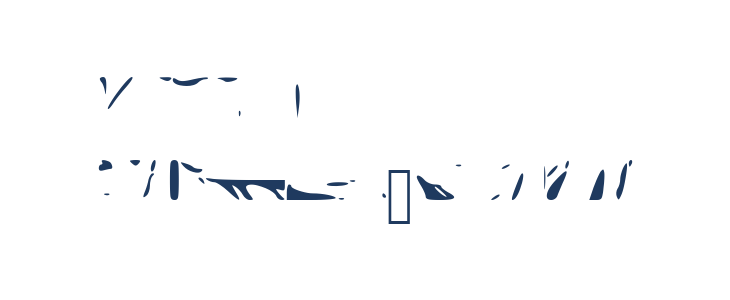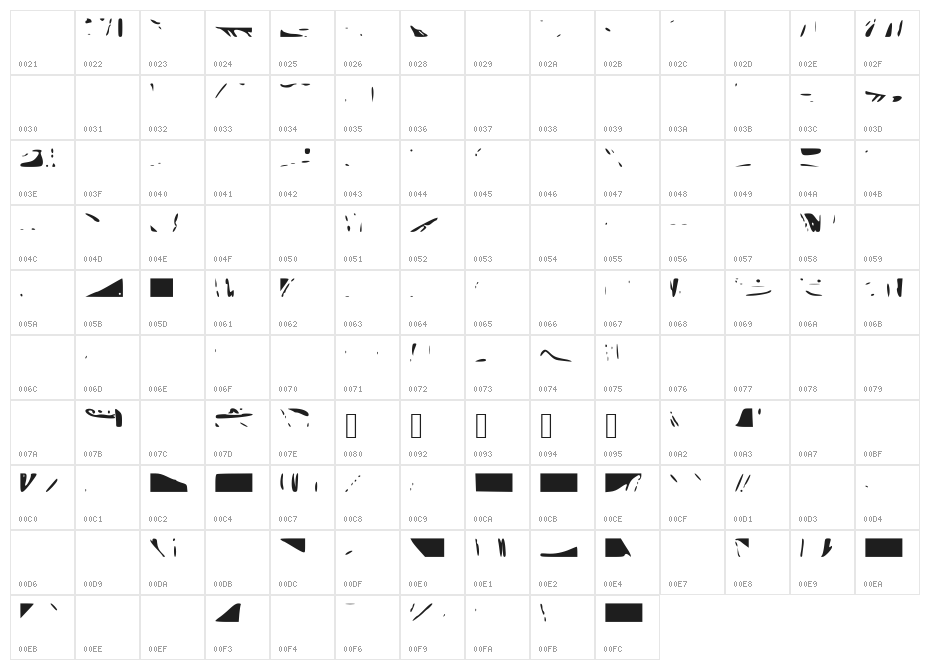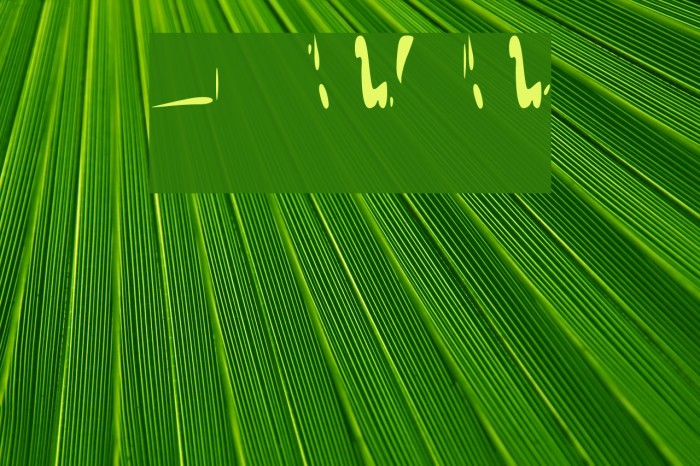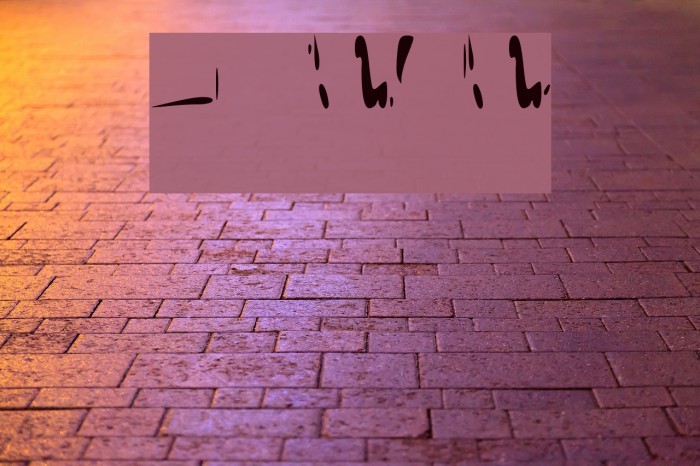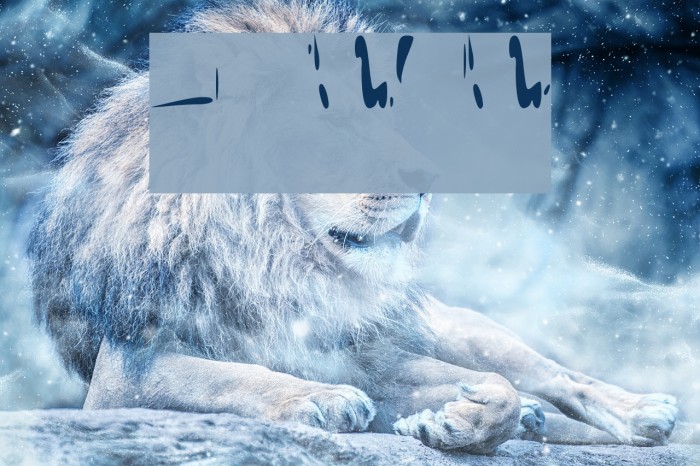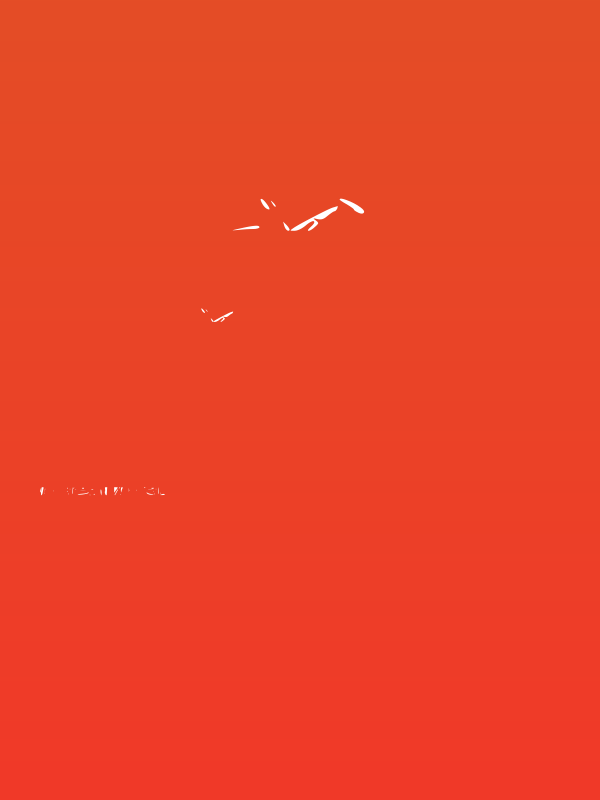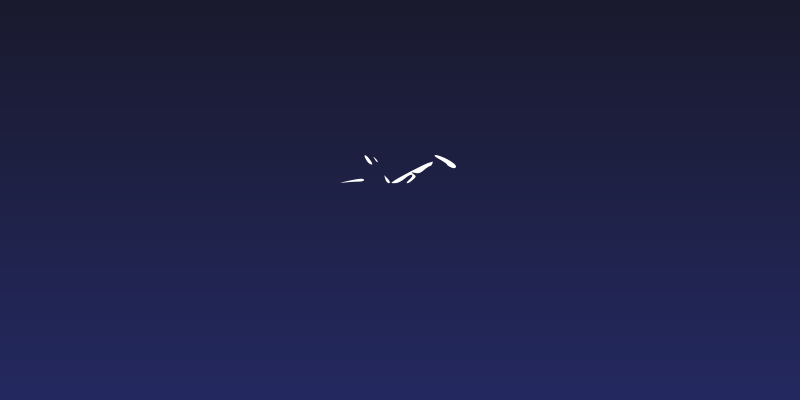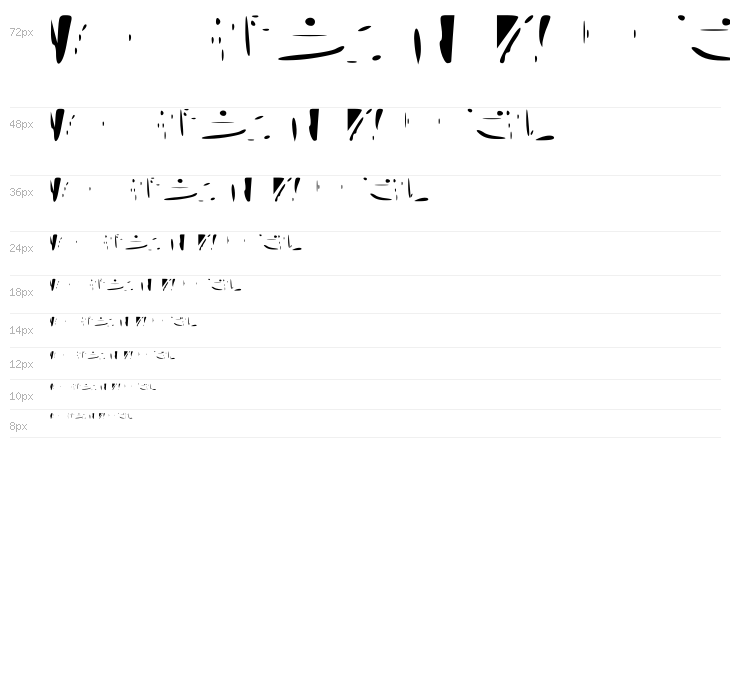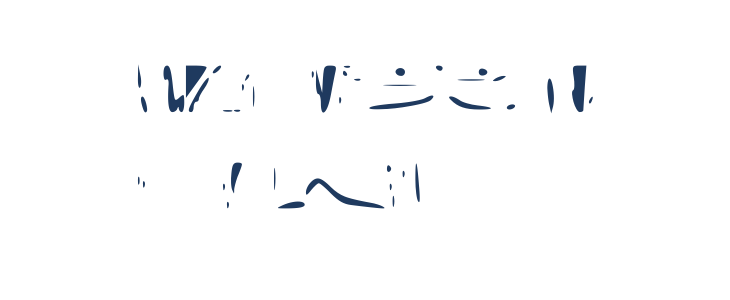
Igaram Font
Igaram Description
This font features a highly decorative and abstract style, characterized by its fragmented and artistic letterforms. Each character appears as if it has been deconstructed and reassembled in a unique, almost chaotic manner, giving it a distinct and avant-garde appearance. The strokes are bold and irregular, with varying thicknesses that create a dynamic visual rhythm. The overall design is reminiscent of modern art, where traditional forms are broken down to explore new visual expressions. This font is not suitable for body text due to its complexity but can make a striking impact in headlines or artistic projects.
| Overall Style | Modern, Artistic, Avant-garde |
| Use Case | Headlines, Artistic projects, Experimental design |
| Proposed Projects | Ideal for artistic projects, avant-garde posters, album covers, and experimental design work. |